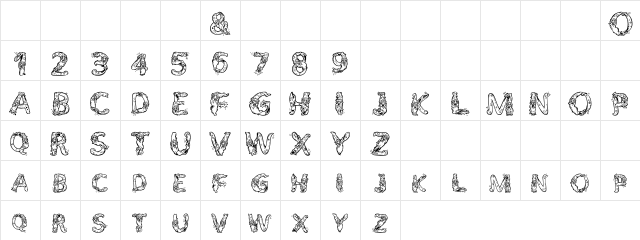
AlphaWizard Regular Free Font
AlphaWizard Regular
Complete AlphaWizard Regular glyph index. Displaying only characters natively supported by AlphaWizard Regular font.
Design Context for AlphaWizard
AlphaWizard is a composed and adaptable typeface that performs quietly and consistently across a wide range of design contexts.